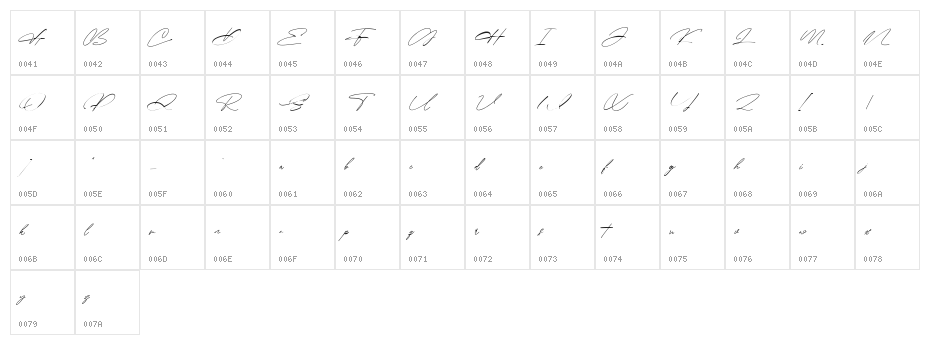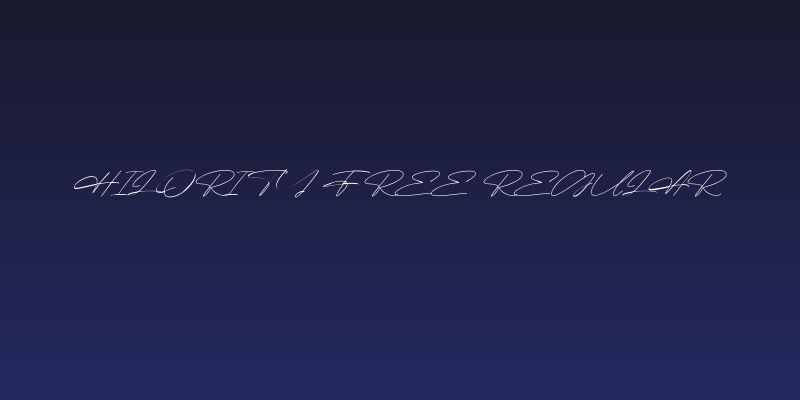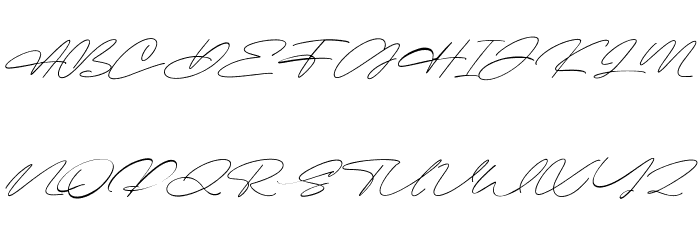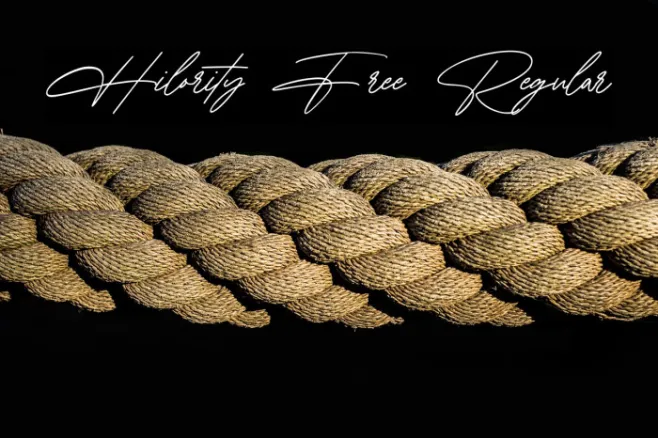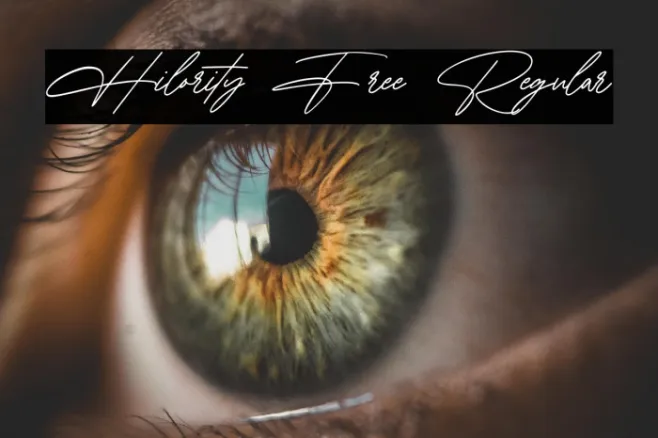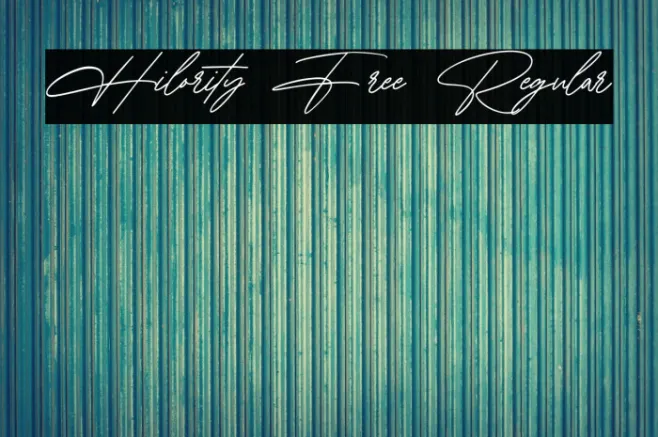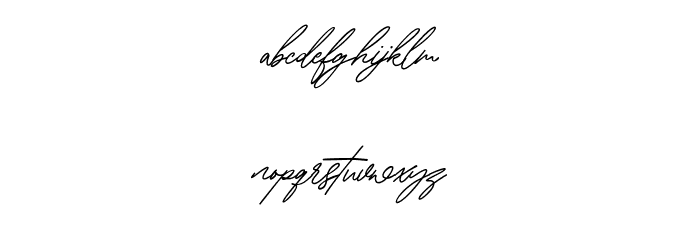
Hilority Free Regular Font
Hilority Free Regular Description
This font features an elegant, flowing script style that mimics natural handwriting. The letters are connected, creating a seamless and fluid appearance. The strokes are thin and delicate, giving it a refined and sophisticated look. It has a modern yet timeless appeal, suitable for a variety of design projects. The uppercase letters are slightly more embellished, while the lowercase letters maintain a consistent flow. The font's overall aesthetic is both graceful and stylish, making it an excellent choice for formal invitations, branding, and other creative endeavors.
| Proposed Projects | Ideal for wedding invitations, branding, logos, and elegant stationery. |